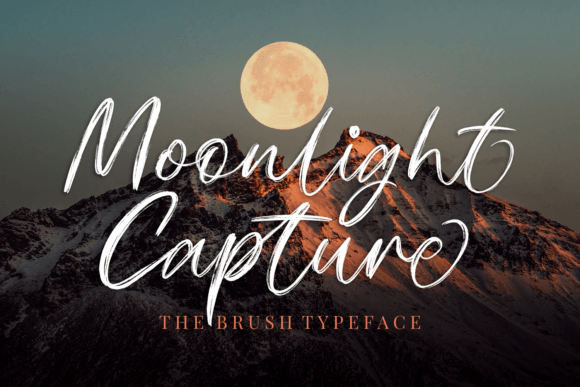
Behold, Moonlight Capture - a script font of exquisite beauty, crafted by the talented Situjuh, awaits your discovery!
Moonlight Capture is not just a font; it's a captivating journey into the realm of artistic expression. Its meticulously crafted strokes, imbued with a touch of elegance, dance across the page, leaving a trail of visual delight. With a myriad of flourishes and swashes, this font exudes a charm that is both timeless and captivating.
Unlock the boundless creativity within you! From heartfelt love letters to awe-inspiring invitations, Moonlight Capture seamlessly adapts to your every need. Its versatility knows no bounds, effortlessly transforming your words into works of art. Unleash your imagination and let Moonlight Capture guide you to new heights of creative expression.
Dare to be bold, embrace the extraordinary, and make a statement with Moonlight Capture. Its enchanting aura will cast a spell on your audience, leaving them spellbound and eager for more. Experience the magic of Moonlight Capture today and witness the transformation of your designs into masterpieces that radiate brilliance.